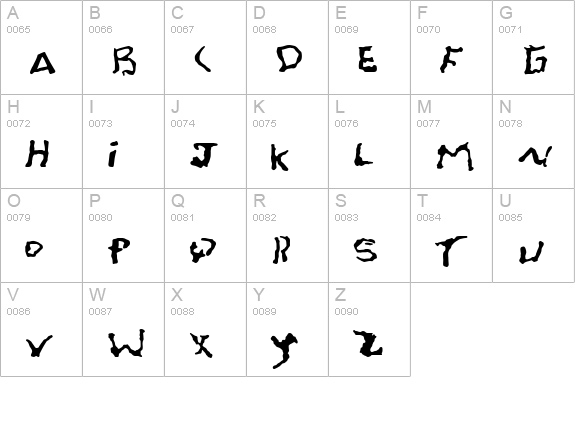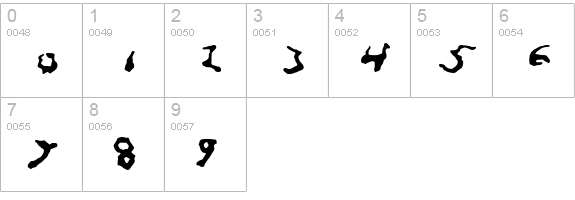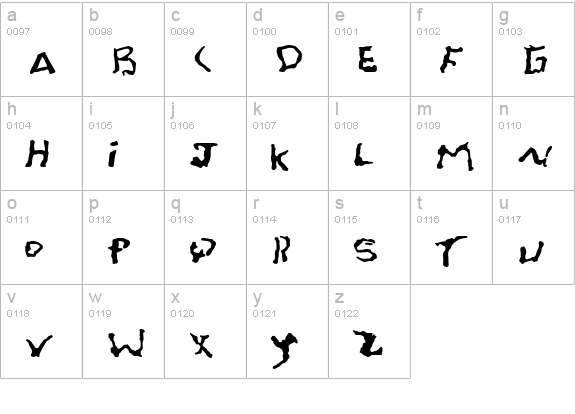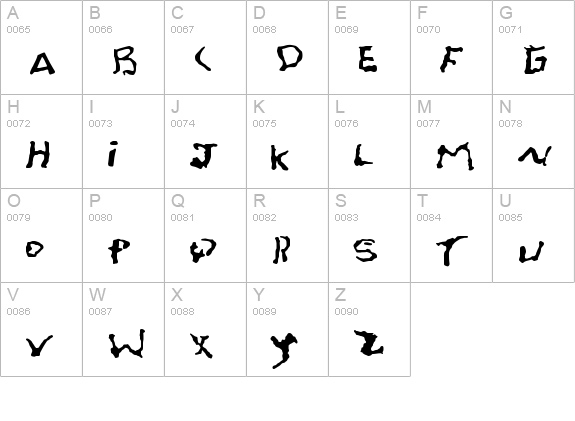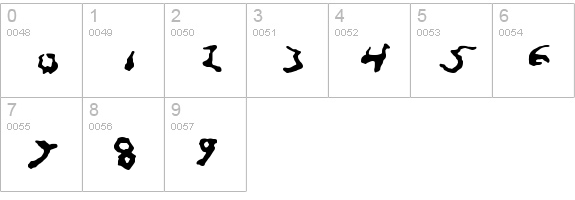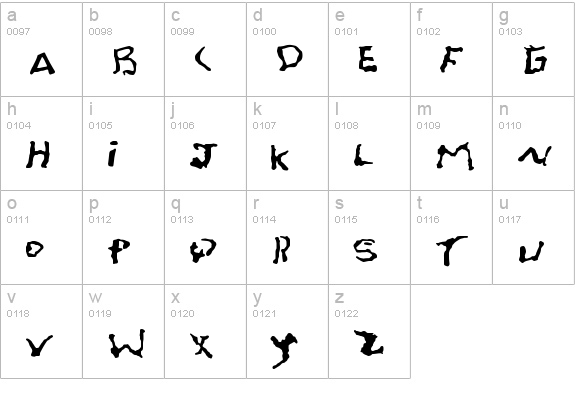
FontOnAGrain Font Details
FontOnAGrain is a unique and stylish font that brings a touch of rustic charm to your designs. Its grainy texture adds a natural and organic feel, perfect for projects that require a cozy and welcoming aesthetic. This font is versatile and can be used for a wide range of design projects, from branding to social media graphics. The best part about FontOnAGrain is that it is available for free download at FontsMarket.com. This means that you can easily access this beautiful font without any cost, making it a great option for both personal and commercial use. Don't miss out on the opportunity to enhance your designs with the rustic elegance of FontOnAGrain. Download it today and let your creativity shine!